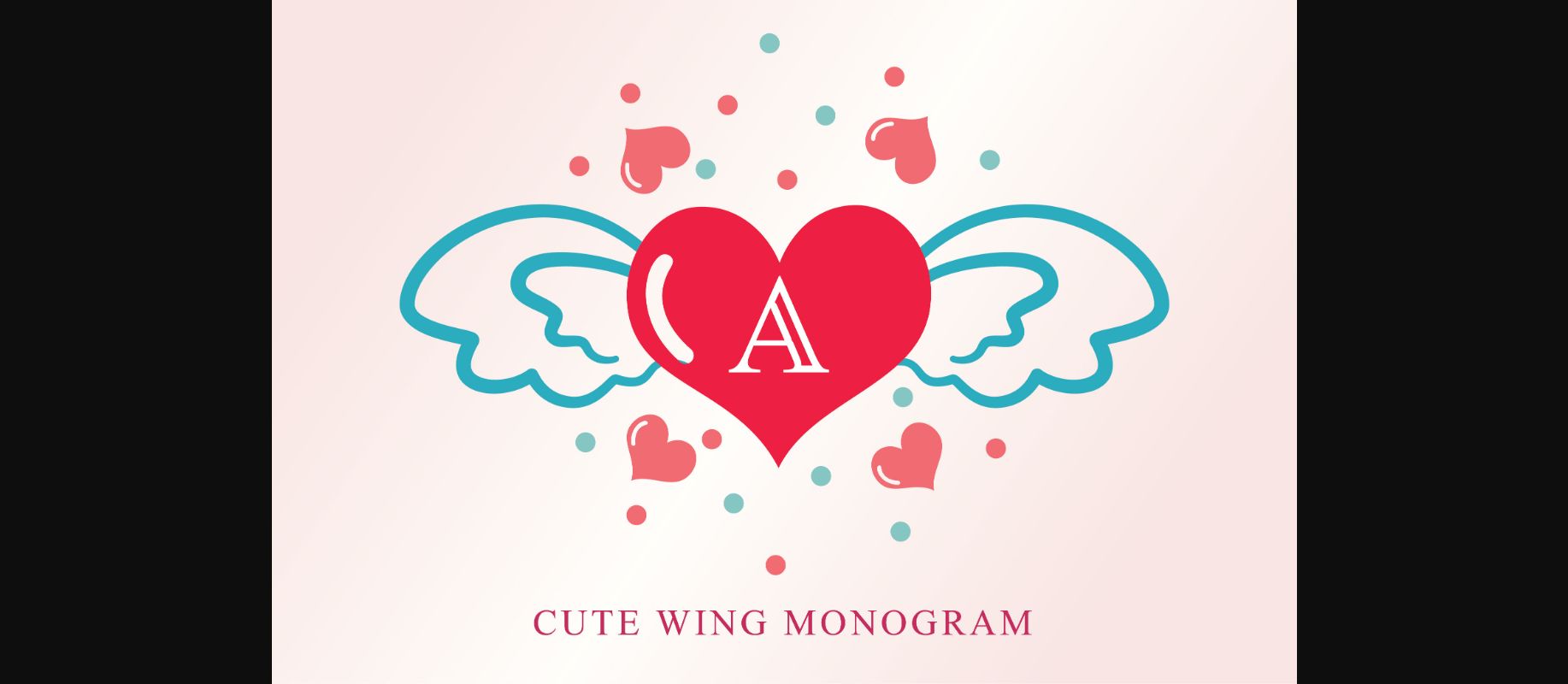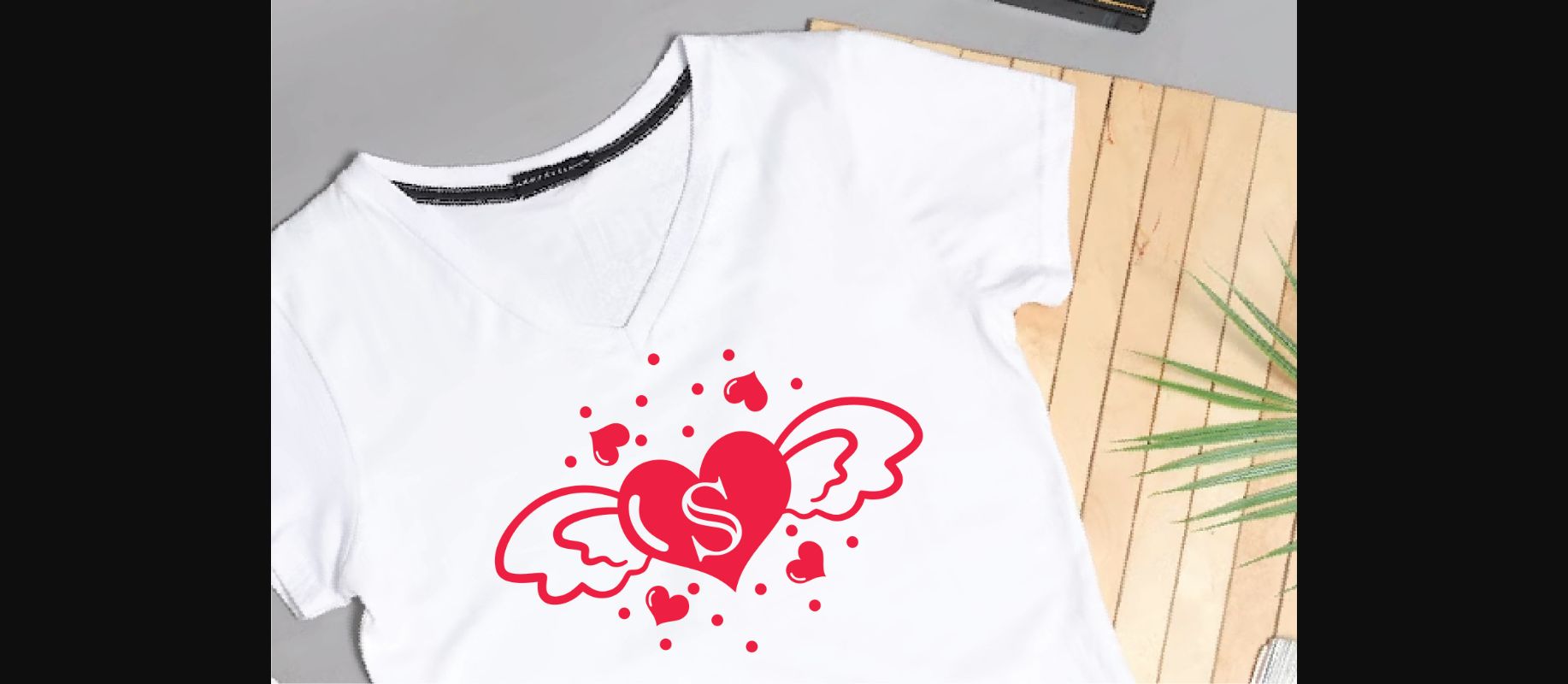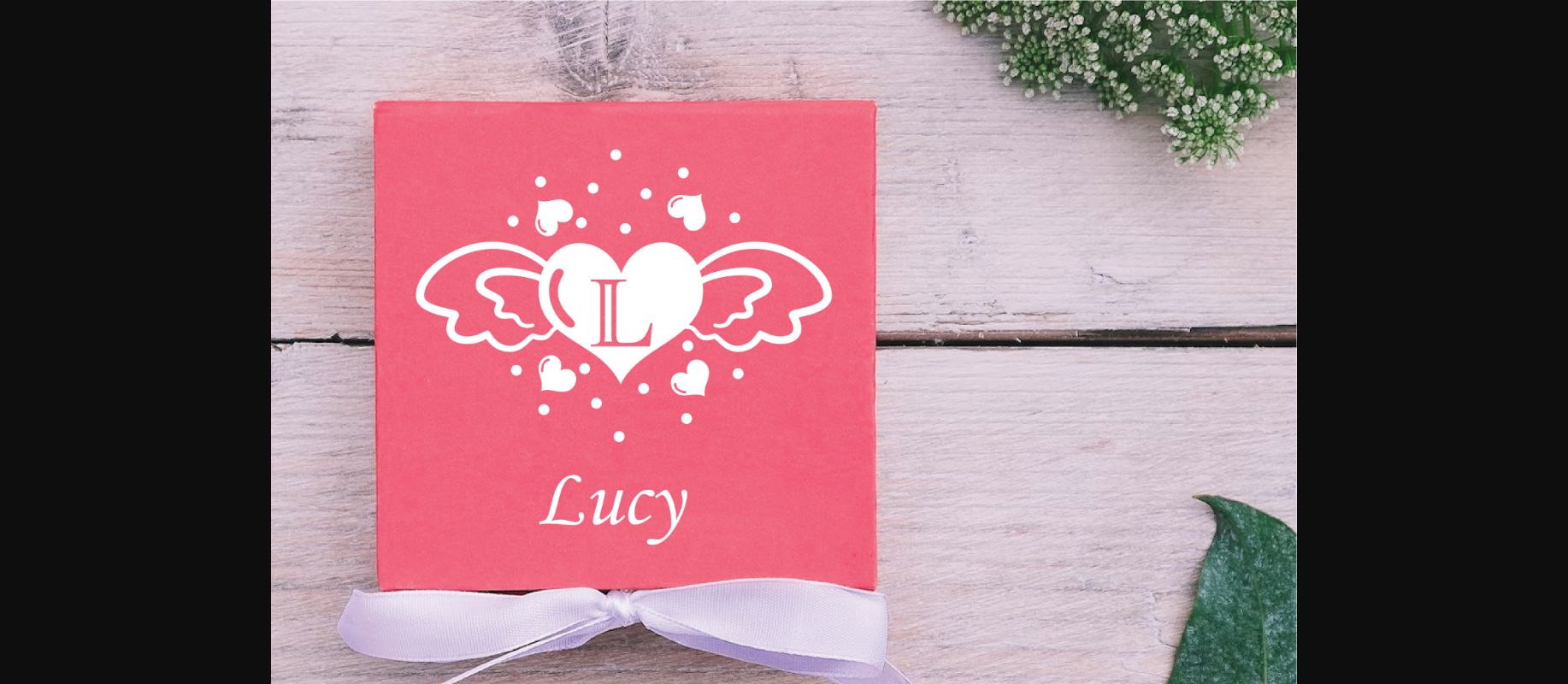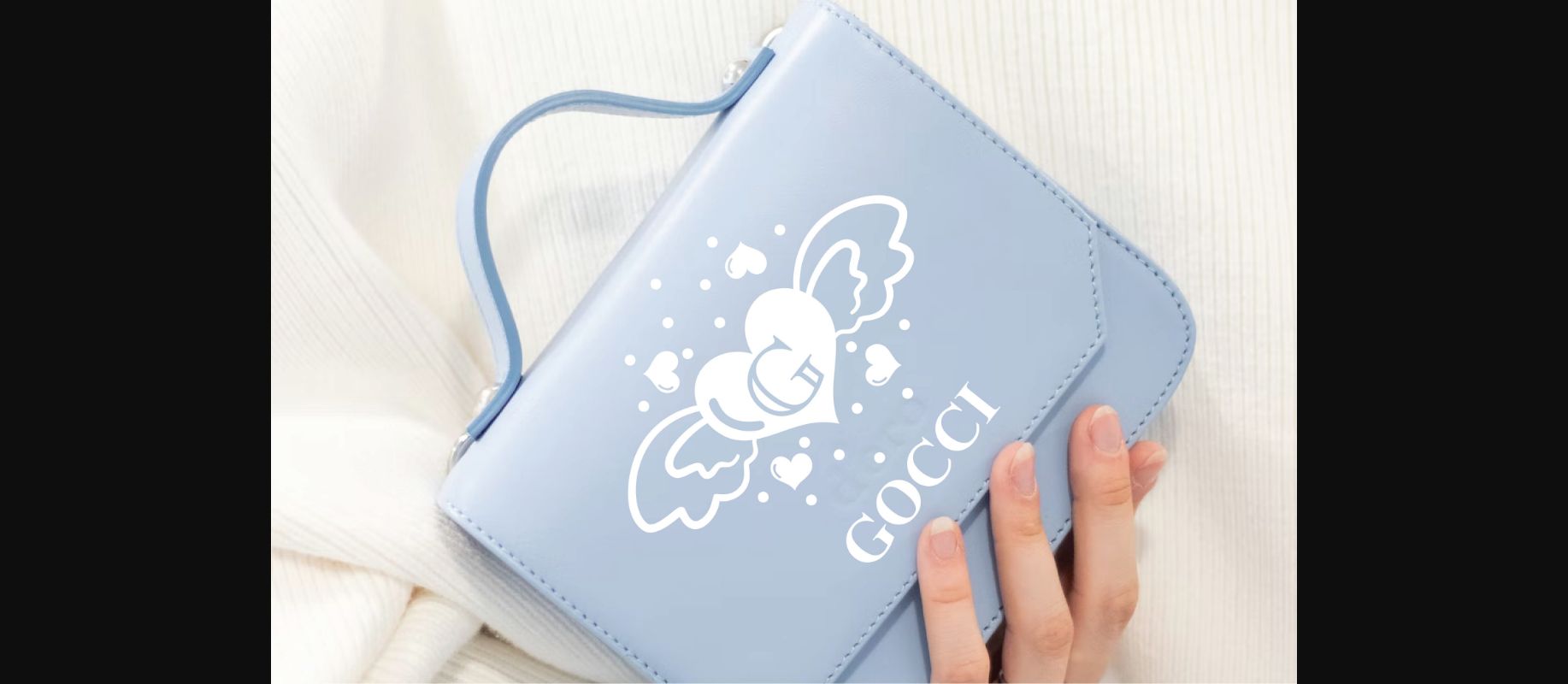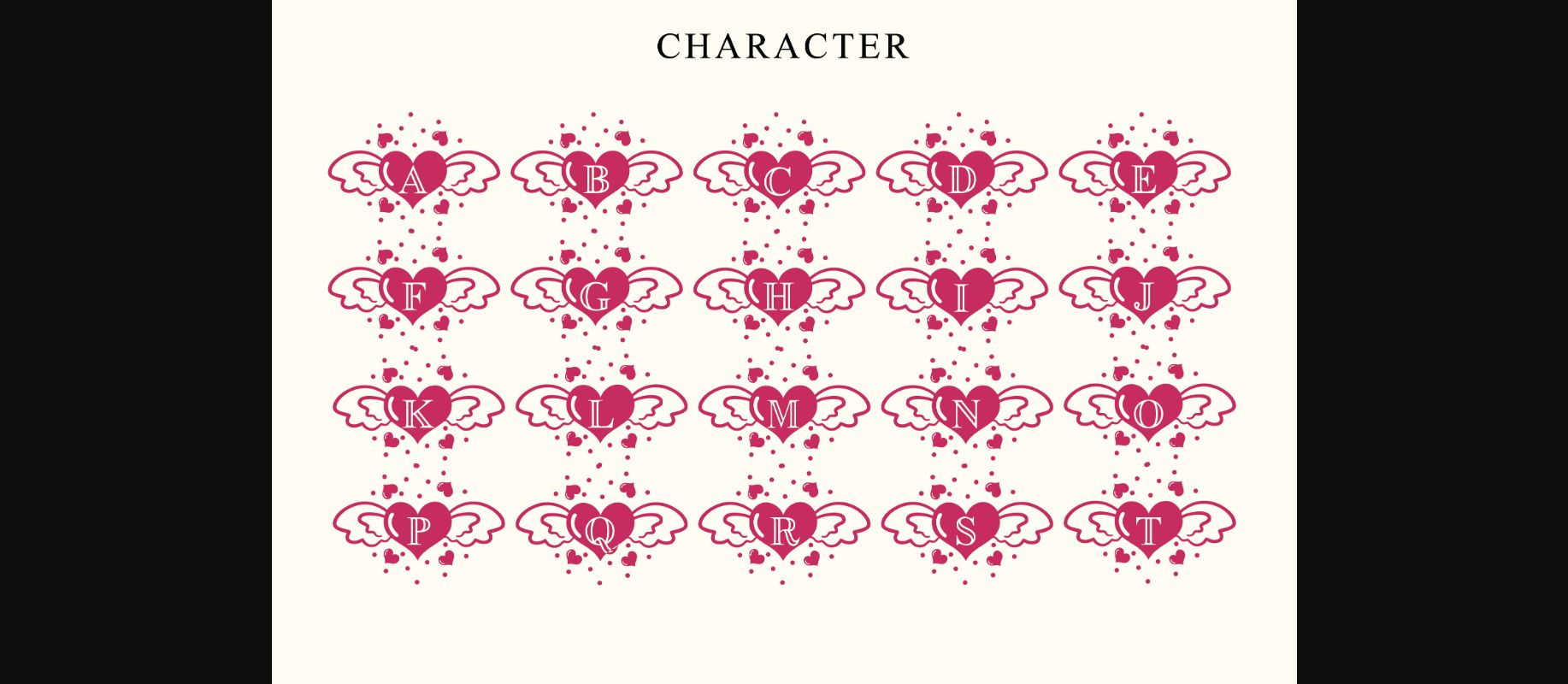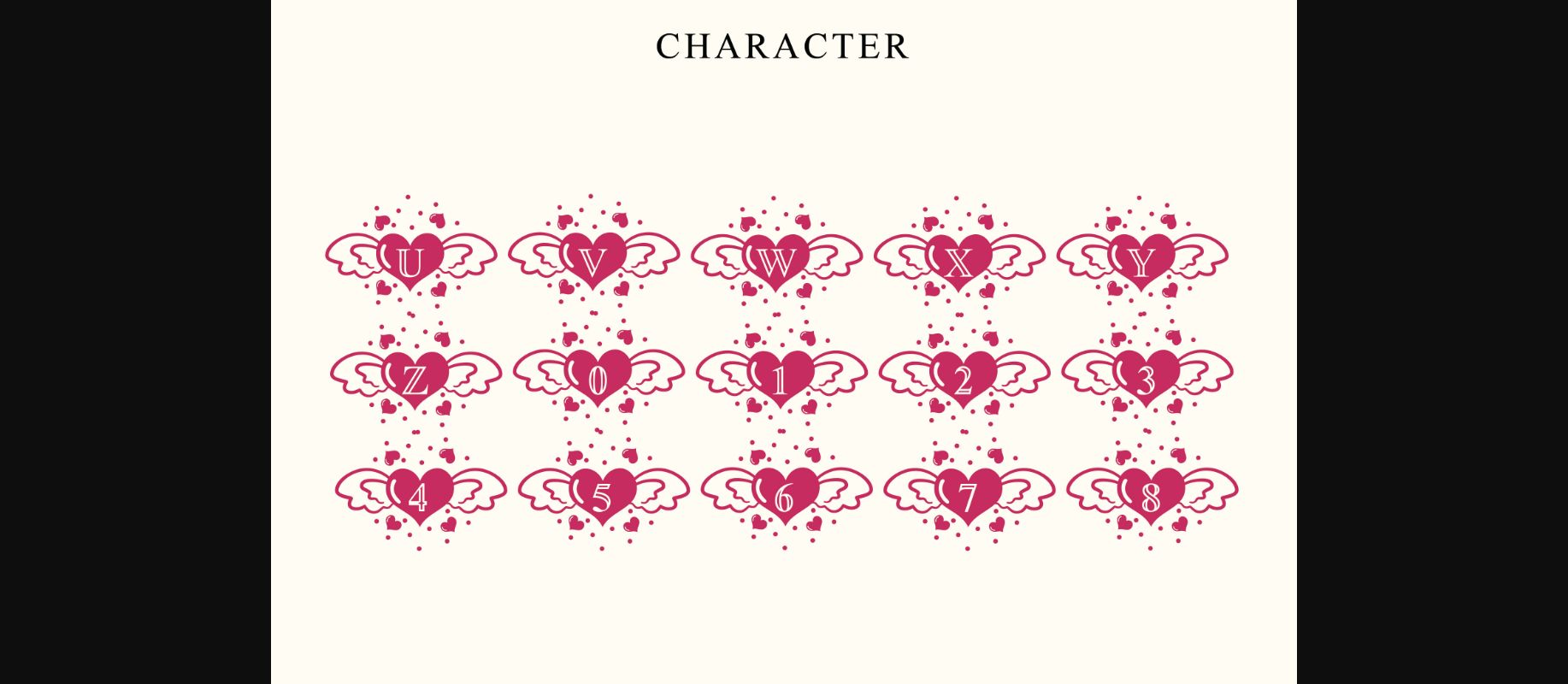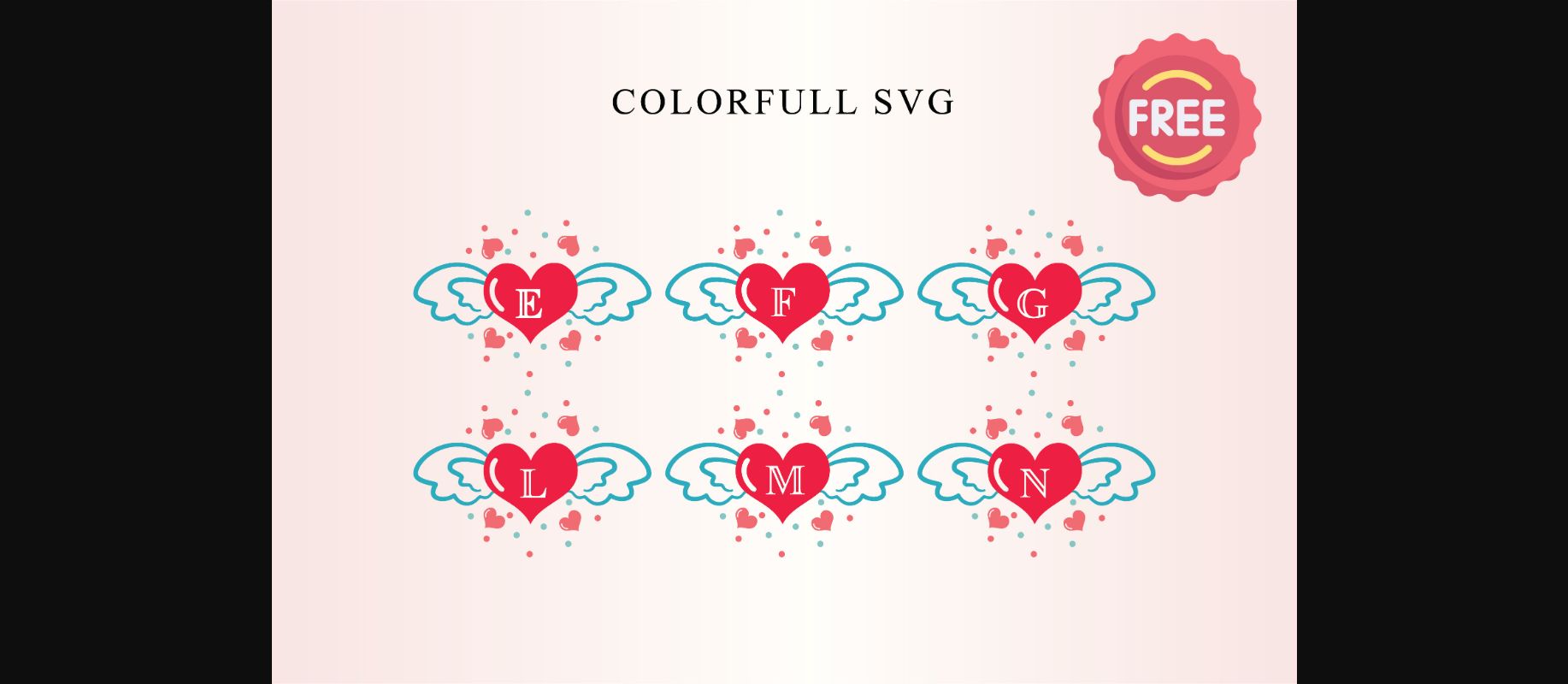
Cute Wing Monogram Font
About Cute Wing Monogram Font
Cute Wing Monogram is a cute and fun Valentine’s Day-themed font. This lovely monogram font is suitable for a wide range of applications.